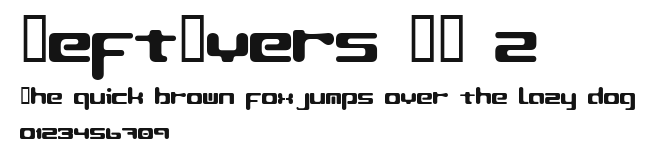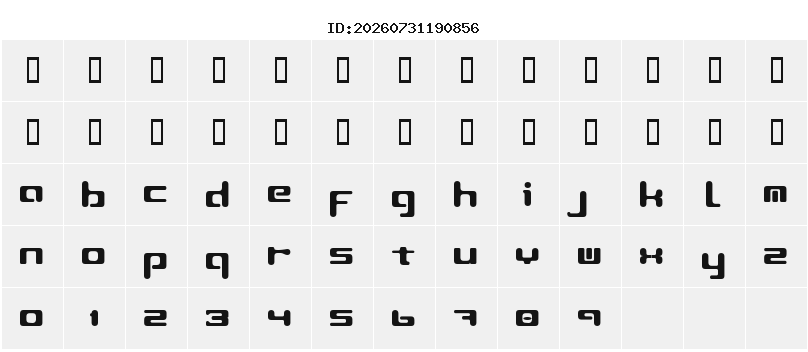
• Font Name: LeftOvers II 2
• Full Font Name: LeftOvers II 2
About LeftOvers II 2.ttf
LeftOvers II 2.ttf is a modern, elegant sans-serif font designed for ultimate readability and visual harmony. Perfect for branding, headlines, web design, and print materials.